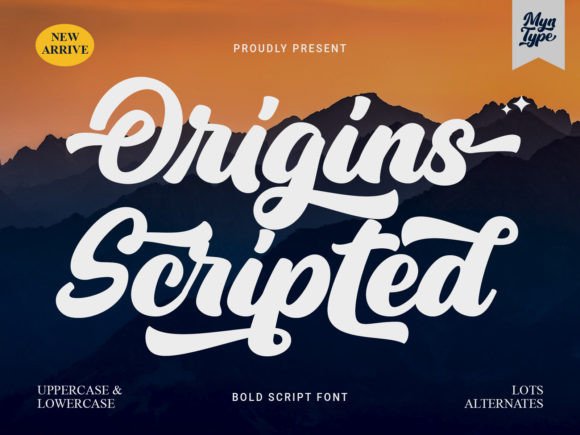
Introducing the Origins Scripted Font, a true masterpiece crafted by myntype for those seeking the best font for their wedding program. This font is more than just a collection of letters; it is a work of art that will leave a lasting impression on your audience.
With its perfect blend of boldness and finesse, the Origins Scripted font commands attention like no other. The sleek, sweeping lines exude confidence, while the intricate curves and flourishes add a touch of refinement that is sure to captivate anyone who lays eyes on it. Prepare to be amazed as this font effortlessly elevates your message to new heights.
Whether you're designing a logo, a poster, or an invitation, the Origins Scripted font is your secret weapon. Its captivating and stylish appearance ensures that your message will not go unnoticed. Each letter is meticulously crafted to convey elegance and charm, making it the perfect choice for any wedding program. Let the beauty of this font enhance the joyous atmosphere of your special day.
Not only does the Origins Scripted font excel in wedding-related designs, but its versatility knows no bounds. From headline text to branding materials and advertising campaigns, this font can seamlessly adapt to any creative endeavor. Its bold strokes and dynamic letterforms deliver your message with power and elegance, leaving a lasting impact on your audience.
In a world filled with ordinary fonts, be extraordinary. Choose the Origins Scripted font and transform your designs into works of art. Stand out from the crowd and leave a lasting impression on your audience. Whether you're a professional designer or a DIY enthusiast, this font will elevate your creations to new heights of beauty and sophistication.